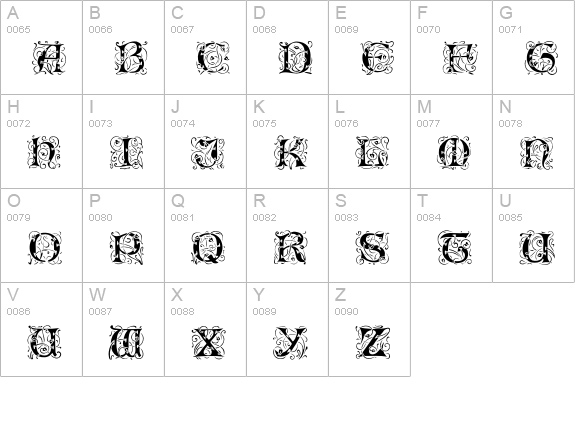
EileenCaps-Black is a maximum-weight, dramatic variant in the EileenCaps typeface family \xE2\x80\x94 well suited to maximum-impact headlines, posters, and packaging.
EileenCaps-Black font is a modern and elegant typeface that exudes sophistication and style. With its bold and eye-catching design, this font is perfect for creating impactful headlines, logos, and branding materials. The sharp lines and unique characters of EileenCaps-Black make it stand out from the crowd, adding a touch of luxury to any project. What's even better is that EileenCaps-Black font is available for free download at FontsMarket.com. Whether you're a designer looking to add a touch of elegance to your creations or a business owner in need of a striking font for your marketing materials, EileenCaps-Black is the perfect choice. Download this stunning font today and elevate your designs to the next level.